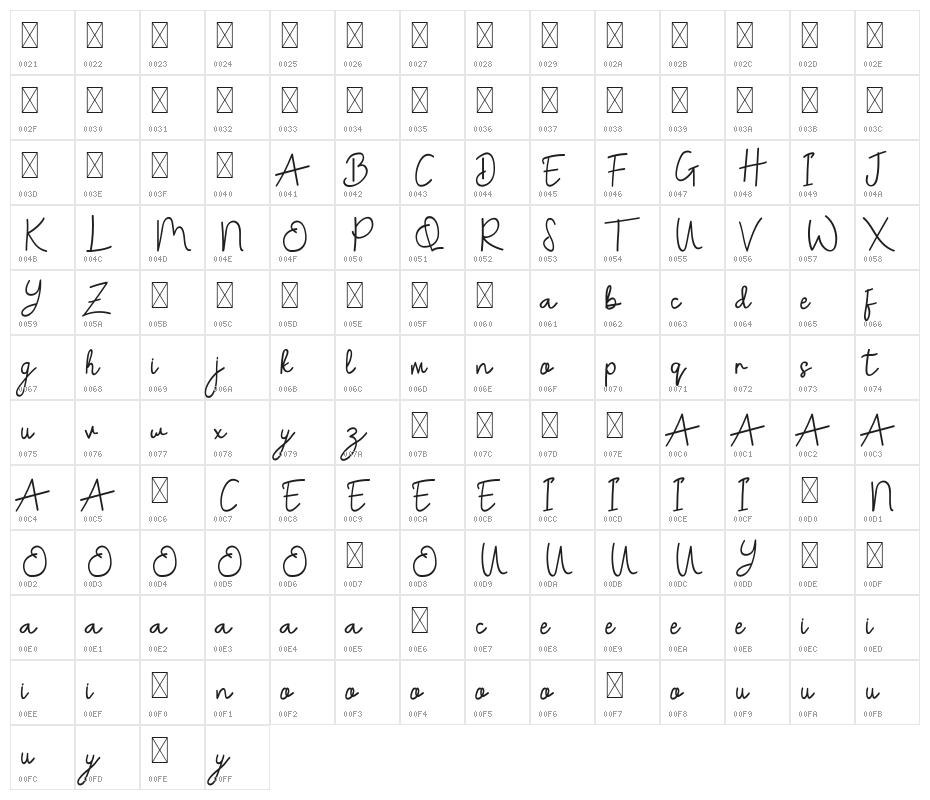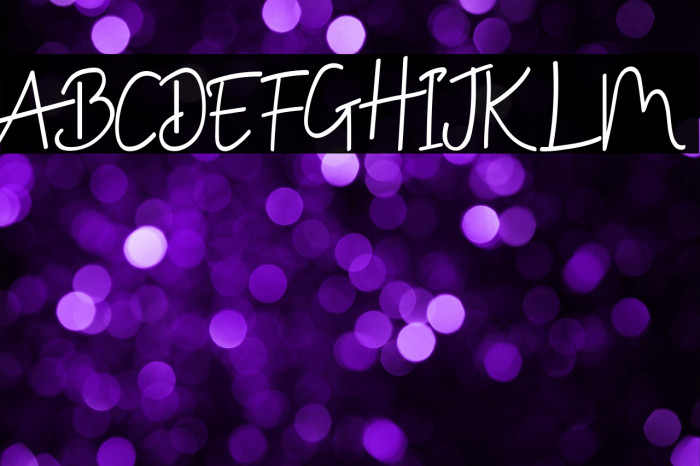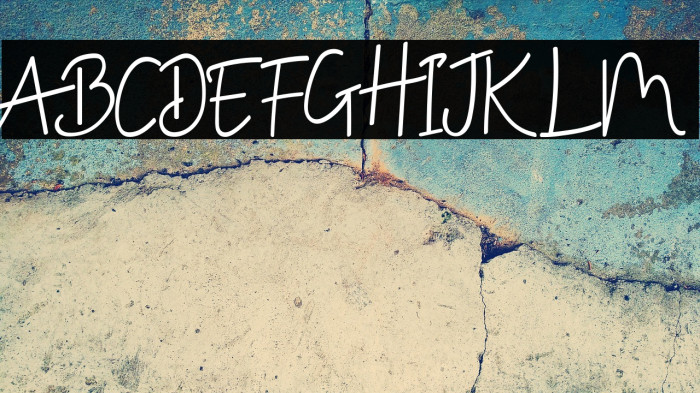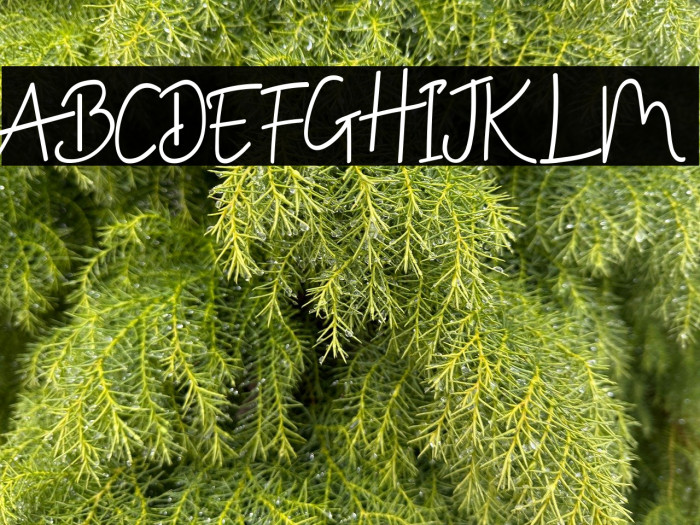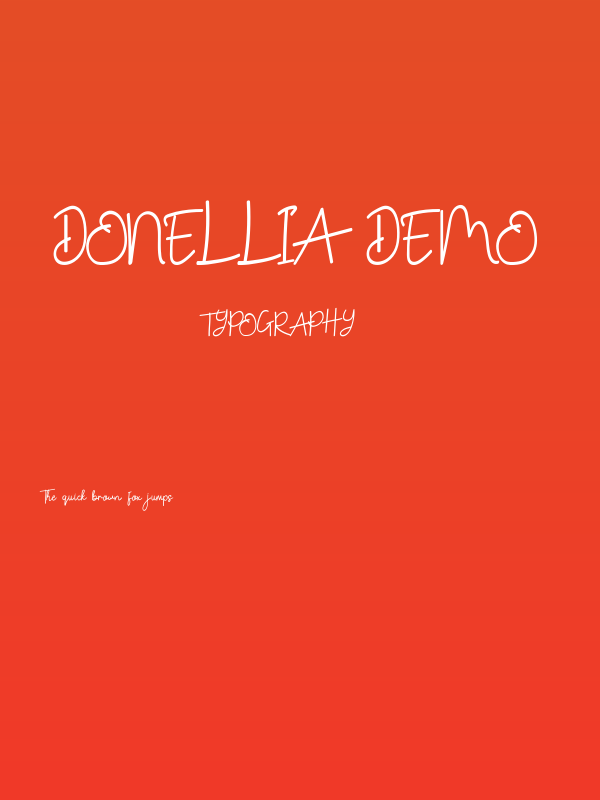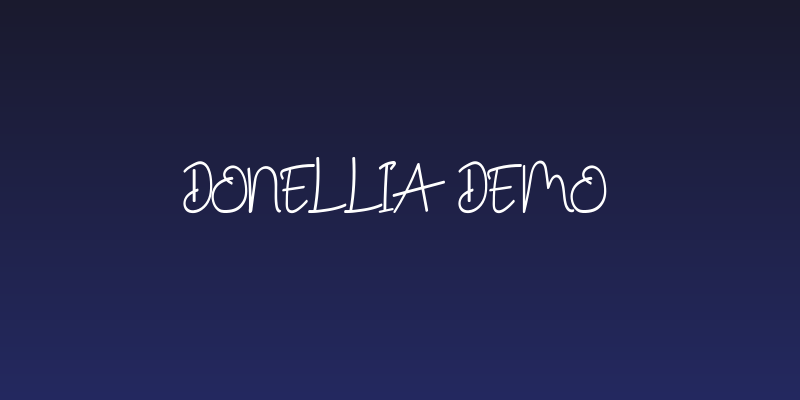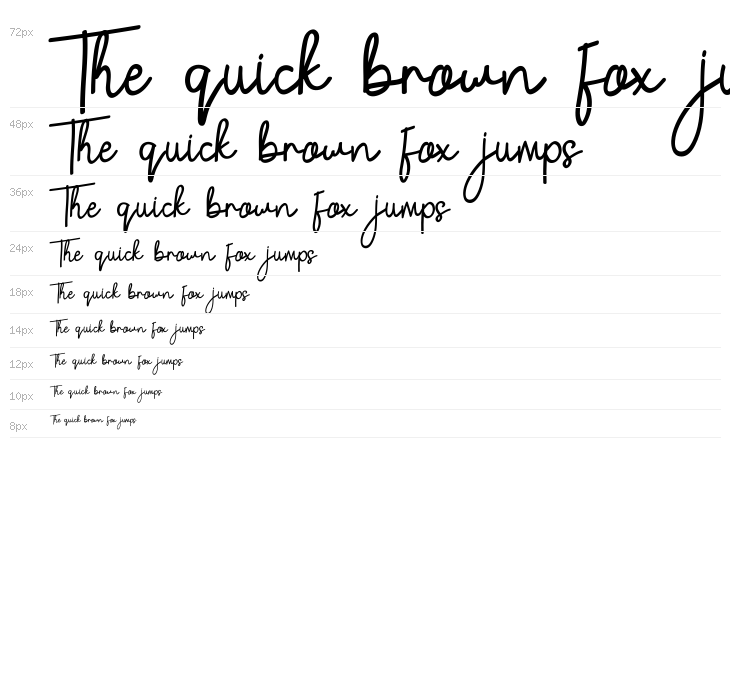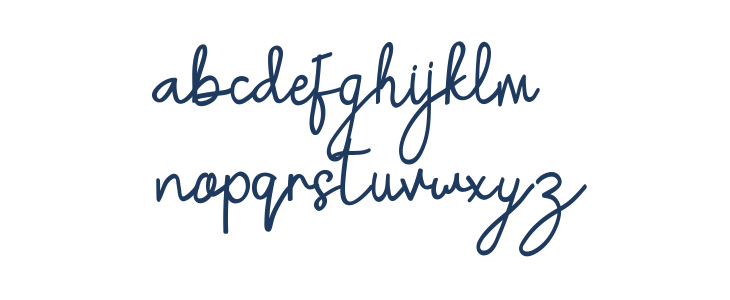
Donellia Demo Font
Donellia Demo Description
This font features a playful and casual handwritten style, characterized by its fluid and connected strokes. The uppercase letters are tall and slender, with a slight slant that adds a dynamic feel. The lowercase letters maintain a consistent flow, with loops and curves that enhance its informal appearance. The overall design is reminiscent of personal handwriting, making it approachable and friendly. The font's unique character is further emphasized by its varying stroke thickness, which adds a touch of elegance and sophistication. This font is ideal for projects that require a personal touch, such as invitations, greeting cards, and personal branding.